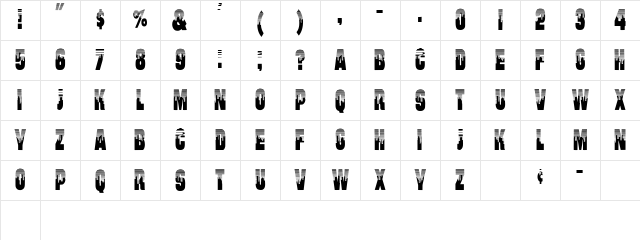
Will Regular
Will Family
Will Regular
Design Context for Will
Will is a composed and adaptable typeface that performs quietly and consistently across a wide range of design contexts.